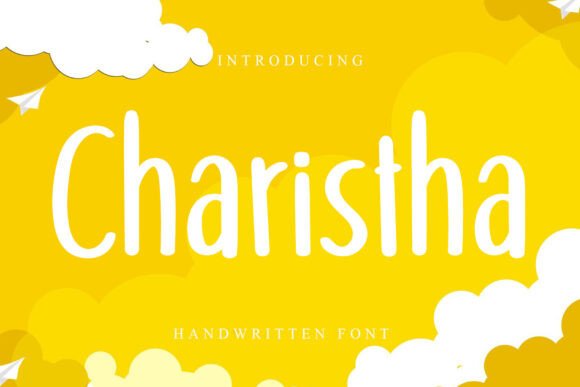
Introducing Charistha Font: The Timeless Handwritten Font for Stunning Designs
In the world of typography, fonts play a crucial role in making or breaking a design. A well-chosen font can elevate your brand’s visual identity, making it more recognizable and memorable. If you’re on the hunt for a font that exudes elegance, sophistication, and a touch of personality, look no further than Charistha Font. In this article, we’ll dive into the world of Charistha, exploring its unique features, uses, and benefits.
What is Charistha Font?
Charistha is a lovely and timeless handwritten font that has captured the hearts of designers and typography enthusiasts alike. Its unique blend of classic and modern elements makes it an excellent choice for creating eye-catching logos, branding, and quotes. Each letter in the Charistha Font has a distinct and beautiful touch, which will breathe life into your designs.
Key Features of Charistha Font
- Handwritten elegance: Charistha boasts a beautiful, handwritten aesthetic that adds a personal touch to any design.
- Unique letterforms: Every letter in the Charistha Font has a distinct character, making it perfect for creating visually appealing text.
- Timeless appeal: Charistha’s classic design ensures that it will remain relevant for years to come, making it a valuable addition to your font library.
- Versatility: This font is suitable for a wide range of design applications, from logos and branding to quotes and social media graphics.
Uses of Charistha Font
Charistha Font is an incredibly versatile typeface that can be used in various design projects. Here are some ideas to get you started:
Design Applications
- Logo design: Charistha’s unique letterforms make it an excellent choice for creating memorable logos that stand out.
- Branding: Use Charistha Font to develop a consistent visual identity for your brand, including business cards, letterheads, and packaging.
- Quotes and posters: Add a touch of elegance to your quotes and posters with Charistha’s beautiful handwritten script.
- Social media graphics: Charistha Font is perfect for creating engaging social media graphics, including Facebook posts, Instagram stories, and Twitter headers.
Benefits of Using Charistha Font
So, why should you choose Charistha Font for your design projects? Here are some benefits that set it apart:
Why Choose Charistha Font?
- Ease of use: Charistha Font is easy to read and understand, making it perfect for designs that require clear communication.
- High legibility: The font’s clear and distinct letterforms ensure that your text remains legible, even at small sizes.
- Customization: Charistha Font can be easily customized to fit your brand’s unique style, making it a versatile addition to your design toolkit.
- Unique aesthetic: Charistha’s handwritten aesthetic sets it apart from other fonts, giving your designs a distinctive look and feel.
Tips for Using Charistha Font Effectively
To get the most out of Charistha Font, here are some tips to keep in mind:
Best Practices
- Pair with complementary fonts: Combine Charistha Font with complementary fonts to create visual interest and hierarchy.
- Experiment with colors: Try out different color schemes to find the perfect match for your Charistha Font design.
- Pay attention to spacing: Ensure that your text has sufficient spacing to maintain readability and visual appeal.
- Use it consistently: Use Charistha Font consistently across your designs to establish a strong brand identity.
In conclusion, Charistha Font is a timeless handwritten font that offers a unique blend of elegance, sophistication, and personality. Its versatility, legibility, and customization options make it an excellent choice for a wide range of design applications. By incorporating Charistha Font into your design toolkit, you’ll be able to create stunning designs that capture the attention of your audience.